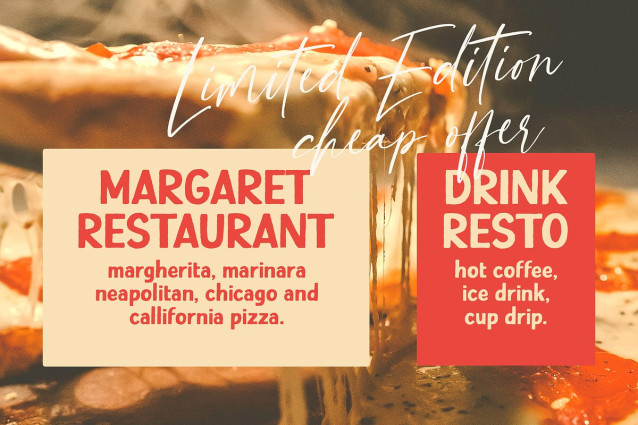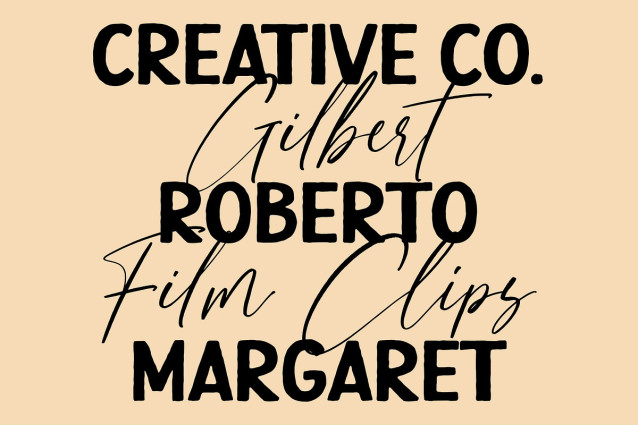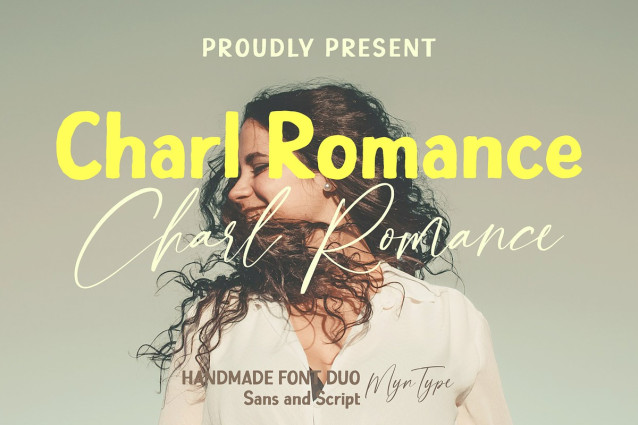
Charl Romance Font Duo
Charl Romance Font Duo is hand drawn textured font combining a sans serif and handwritten script. Design with organic details and authentic brush stroke, this font creates a natural handcrafted look that feel personal and unique.
This font offers versatility, perfect for branding, display product, headline, logos, wedding design, invitation, social media graphics, advertising, packaging and other design elements that require a contemporary and handcrafted touch.